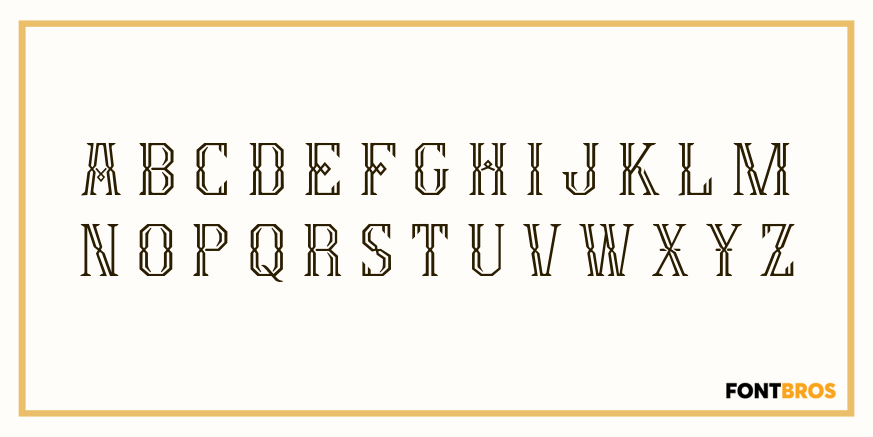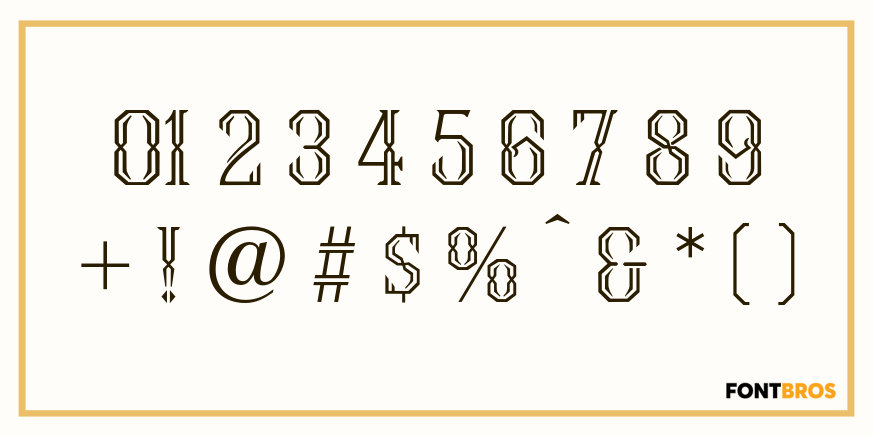
Crossroads
Font Family by Solotype
This was a patented design, so we know who designed it and when. August Will was a type cutter who sold his work to a number of foundries. We worked over this design to open up the space between the strokes to accompdate smaller sizes.